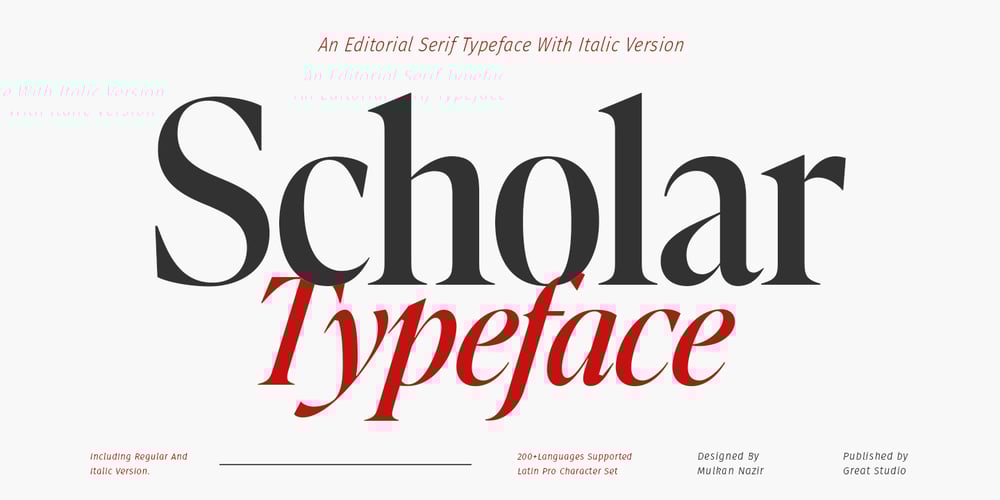
Scholar
Scholar font
Scholar Font Family was designed by Mulkan Nazir and published by Great Studio. Scholar contains 2 styles and family package options. Scholar is a new editorial serif with clean and smooth lines, tight curves, and subtle yet sharply contrasting serifs. It is a typeface series that exudes elegance and confidence.Scholar comes in two font versions: Regular and Italic. It is designed perfectly to meet all your needs, whether you’re creating nostalgic designs that remain clean and elegant, or working on projects like headlines, magazines, logos, packaging, editorials, and more